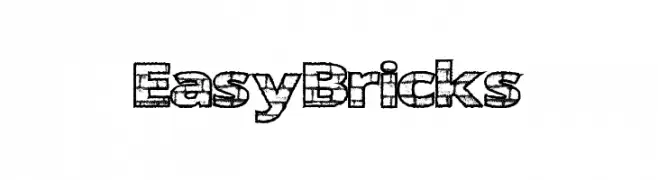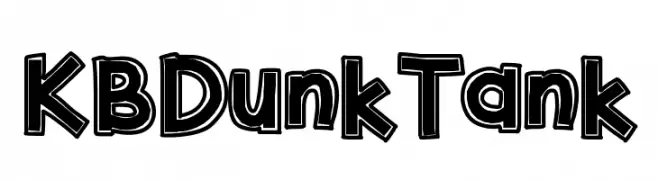
• Palisoc Hollow Italic
• Chomage
A bold, decorative font with a three-dimensional, maze-like design.
• Lisboa Calatrava
• KBDunkTank
( Fonts by Khrys Bosland )
A bold, playful font with a three-dimensional shadow effect.
• AC Framed Inverted
A bold, three-dimensional font with a shadow effect and geometric design.
• AC Framed
A bold, geometric font with a three-dimensional shadow effect.
• Domino-Regular
A playful, three-dimensional font with bold outlines and artistic flair.
• Super cube Blod
A bold, geometric font with a three-dimensional cube-like design.
• EasyBricks
A playful, brick-patterned font with a bold, three-dimensional effect.
• LAKESTERSHADOWLAYER2DEMO-SHADOW